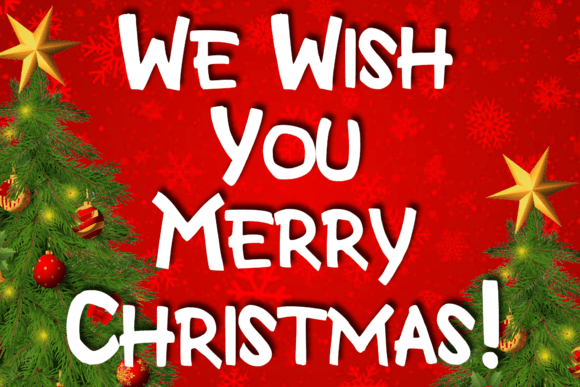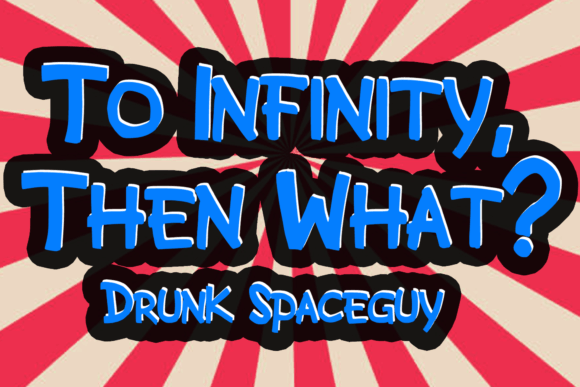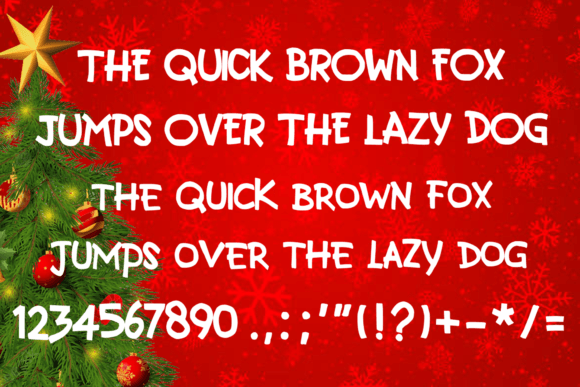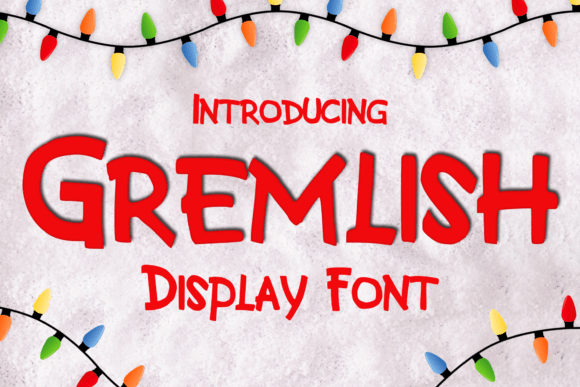
Introducing Gremlish Font: The Ultimate Christmas Display Font for Designers and Crafters
Are you looking for a fun and playful font to add a touch of whimsy to your holiday designs? Look no further than Gremlish Font, a delightful Christmas display font that’s perfect for creating a wide range of festive projects. From t-shirts and book designs to greeting cards and posters, Gremlish Font is the ideal choice for designers and crafters who want to add a dash of personality to their work.
What is Gremlish Font?
Gremlish Font is a fun cartoon Christmas display font that’s designed to bring a smile to your face. Its incredibly versatile style makes it perfect for use in a variety of projects, from casual designs like stickers and gift tags to more elaborate creations like posters and banners. With its playful and carefree vibe, Gremlish Font is sure to capture the spirit of the holiday season and add a touch of magic to your designs.
Key Features of Gremlish Font
• Fun and playful design: Gremlish Font features a unique and quirky design that’s sure to stand out in any project.
• Incredibly versatile: Whether you’re creating a t-shirt, greeting card, or poster, Gremlish Font is the perfect choice for adding a touch of whimsy to your design.
• Scalable: Gremlish Font is designed to be scalable, so you can use it in projects of all sizes, from small stickers to large banners.
Uses for Gremlish Font
Gremlish Font is a versatile font that can be used in a wide range of projects, including:
• T-shirts and apparel: Add a touch of holiday cheer to your t-shirts, hoodies, and other apparel with Gremlish Font.
• Book designs: Use Gremlish Font to create eye-catching book covers, title pages, and illustrations.
• Greeting cards and invitations: Add a playful touch to your holiday greeting cards and invitations with Gremlish Font.
• Stickers and gift tags: Use Gremlish Font to create fun and festive stickers and gift tags.
• Posters and banners: Create eye-catching posters and banners with Gremlish Font that’s sure to grab attention.
Why Choose Gremlish Font?
There are many fonts to choose from, but Gremlish Font stands out for its unique and playful design. Here are just a few reasons why you should choose Gremlish Font for your holiday projects:
• Unique design: Gremlish Font features a one-of-a-kind design that’s sure to make your projects stand out.
• Easily readable: Despite its playful design, Gremlish Font is easy to read, even at small sizes.
• High-quality: Gremlish Font is a high-quality digital font that’s designed to produce crisp and clear results.
Tips for Using Gremlish Font
Here are a few tips for getting the most out of Gremlish Font:
• Experiment with different colors: Gremlish Font looks great in a variety of colors, so don’t be afraid to experiment and find the perfect hue for your project.
• Pair with other fonts: Gremlish Font pairs well with other fonts, so try combining it with a serif or script font to create a unique look.
• Use it sparingly: Gremlish Font is a bold font, so use it sparingly to add emphasis to your design.
Gremlish Font is a fun and playful Christmas display font that’s perfect for designers and crafters who want to add a touch of whimsy to their holiday projects. With its incredibly versatile style and easy-to-use design, Gremlish Font is the ideal choice for creating a wide range of festive projects. So why wait? Download Gremlish Font today and start creating your own magical holiday designs!